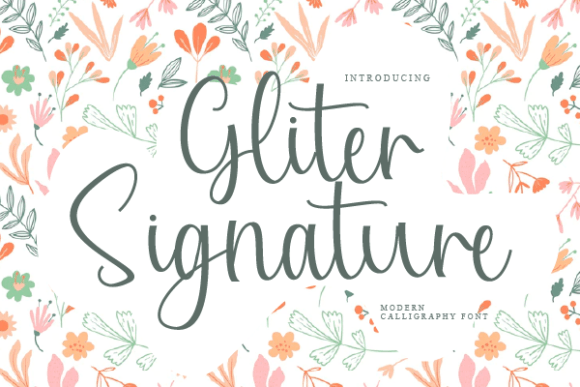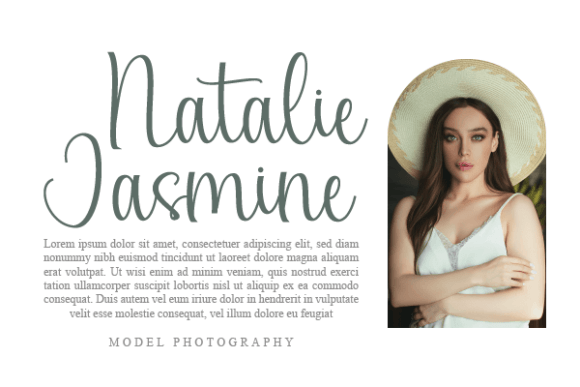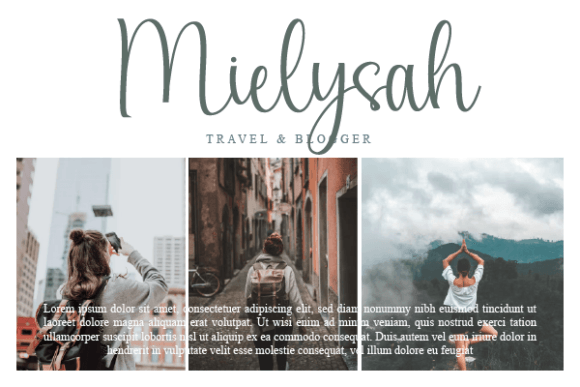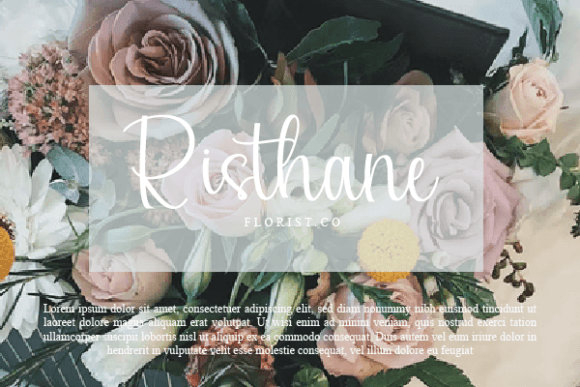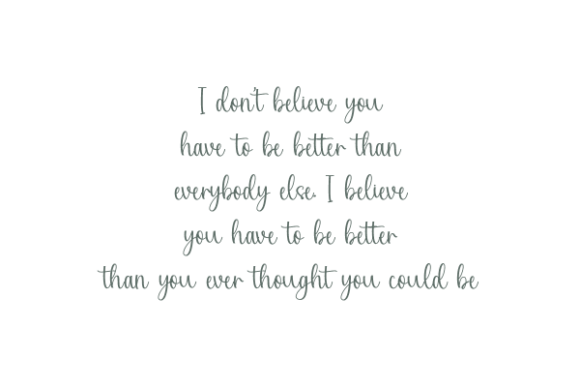
Gliter Signature Font
About Gliter Signature Font
“Gliter Signature” is a beautiful and light handwritten font that carries a unique feel and leaves a stunning impact on your design projects. This font has the ability to add a touch of luxury and sophistication, elevating the overall aesthetic of your creations.
The handwritten and light qualities of “Gliter Signature” make it versatile for various design projects. Whether you’re working on branding materials, invitations, social media graphics, or any other creative endeavor, this font has the potential to infuse a sense of elegance and luxury.
The uniqueness of “Gliter Signature” lies in its distinctive feel, setting it apart and making it suitable for projects where you want to leave a lasting impression. It brings a spark of luxury that can enhance the visual appeal of your designs, making them stand out with a touch of glamour.
Consider incorporating “Gliter Signature” when you want to add a signature-style font that exudes refinement. Whether it’s for a logo, a label, or any other design element, this font has the power to contribute to a sense of exclusivity and sophistication.
In essence, “Gliter Signature” is not just a font; it’s a design element that adds a luxurious spark to your creative projects. With its unique feel and stunning impact, it becomes a valuable tool for those seeking to create designs that reflect a sense of elegance and style.